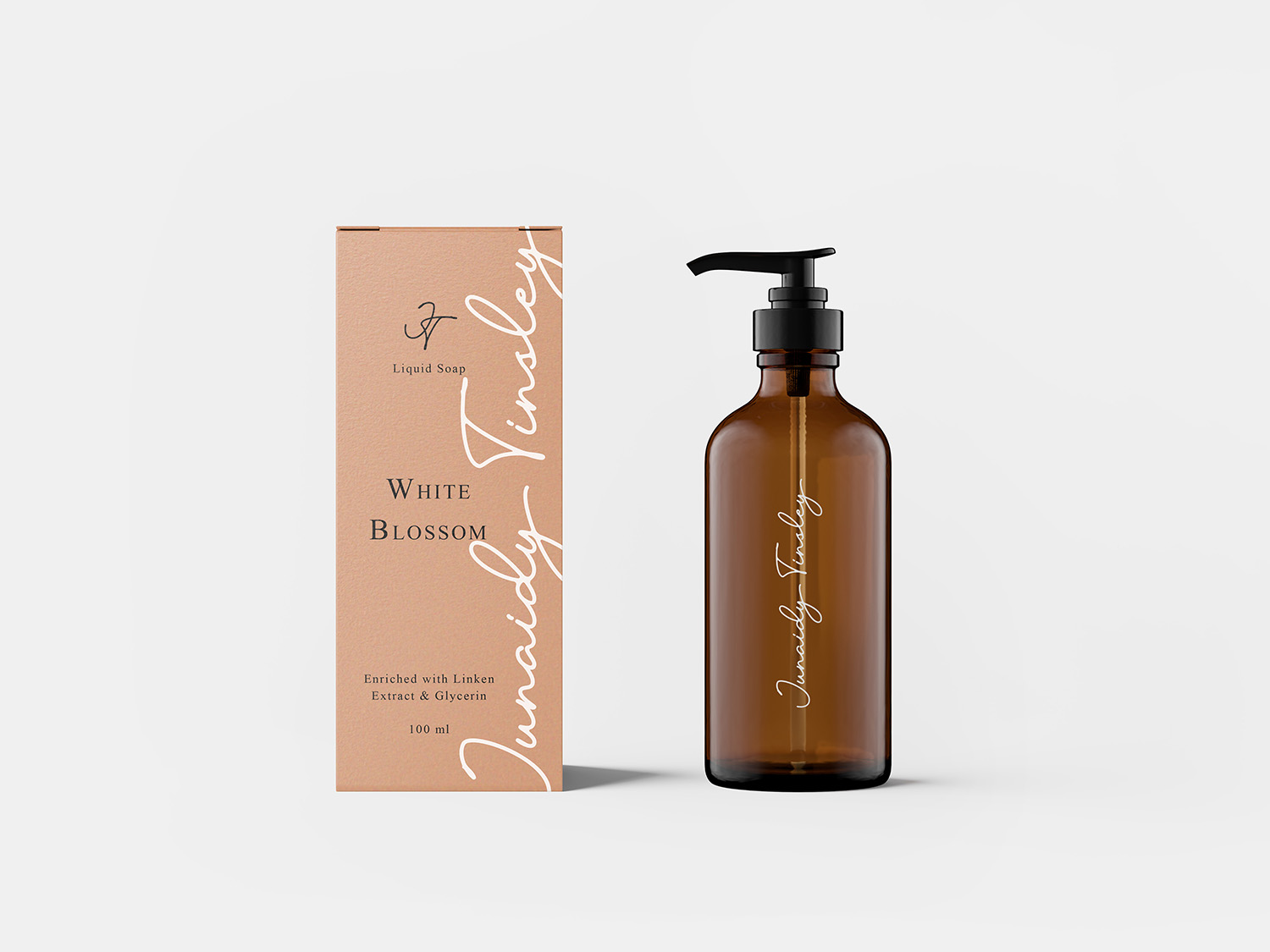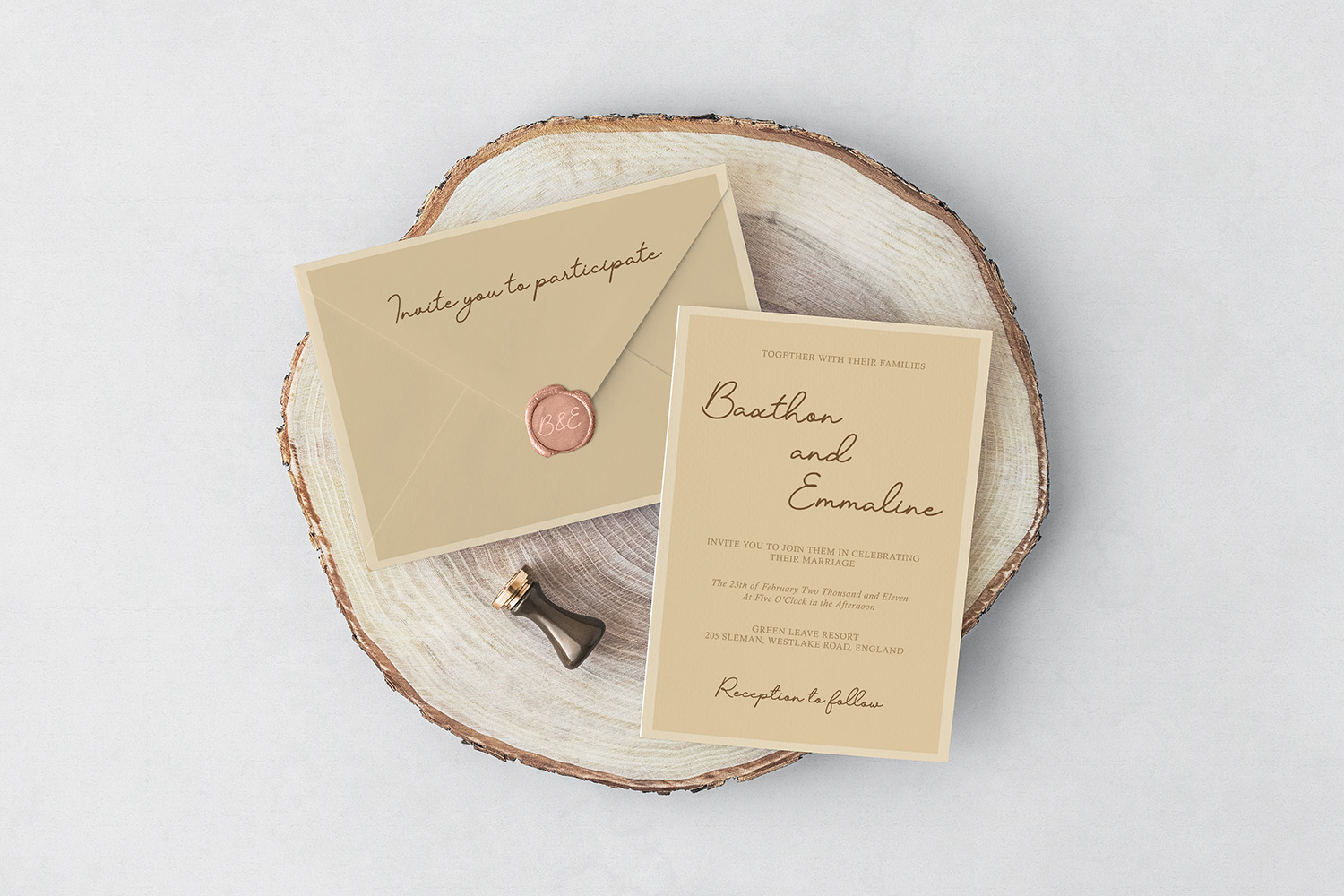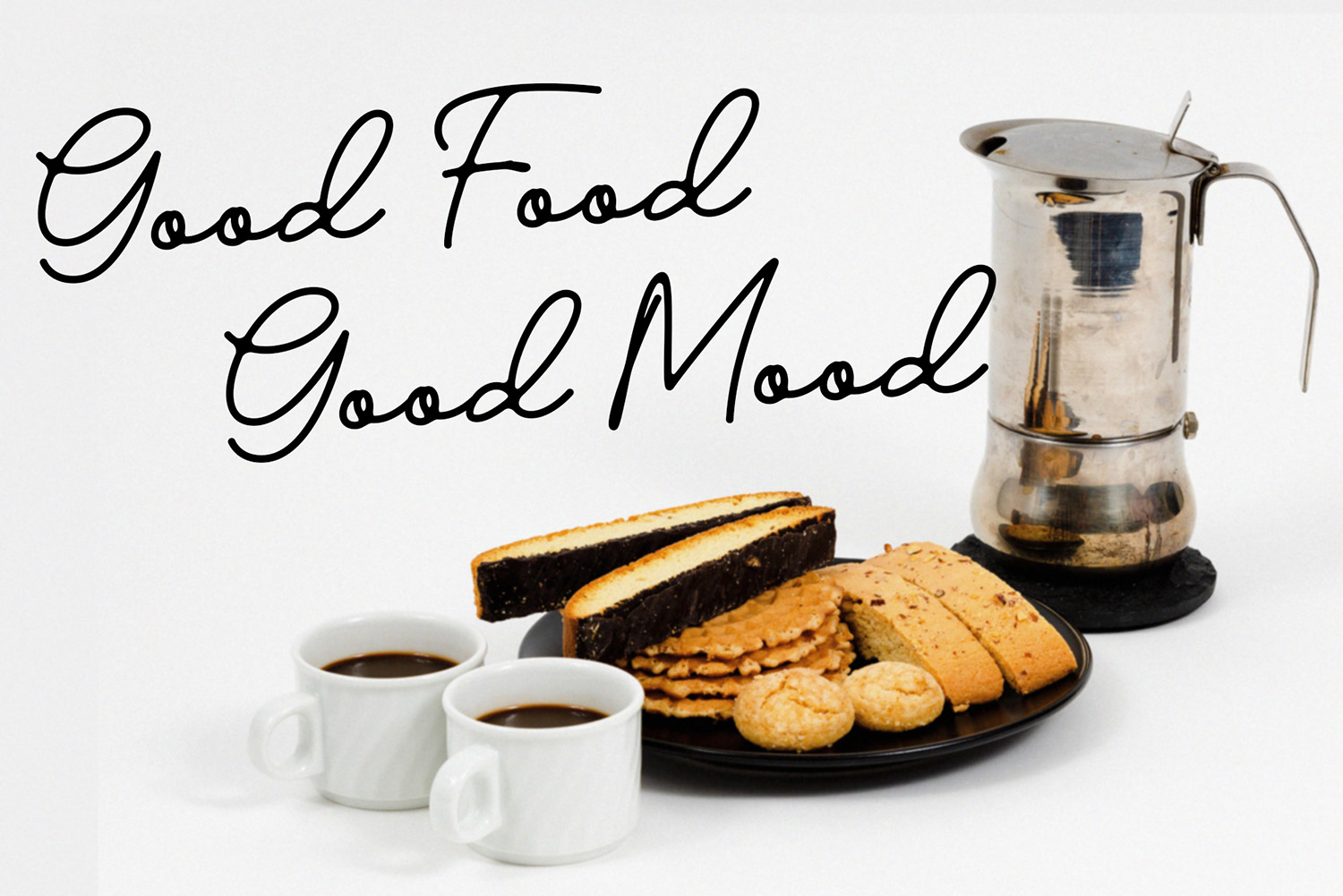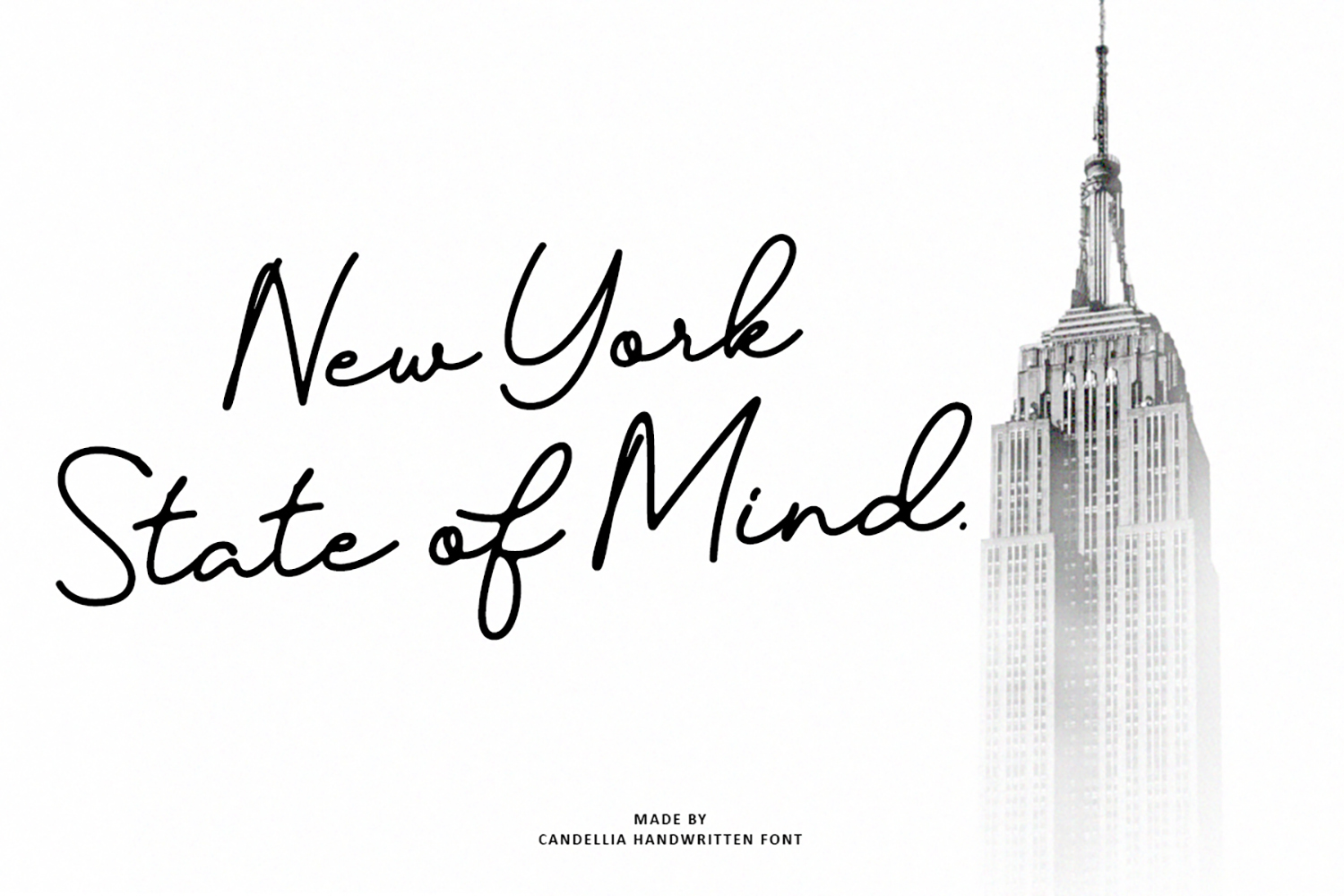
Candelia Free Font
Candelia Free Font is a stylish signature script with a natural and stylish flow. Candelia Signature Font is perfect for branding projects, logo, wedding designs, social media posts, advertisements, product packaging, product designs, label, photography, watermark, invitation, stationery, and any projects that need handwriting taste. This free typeface was designed by a talented Azzam Ridhamalik. If you like it don’t forget to check out the full version.